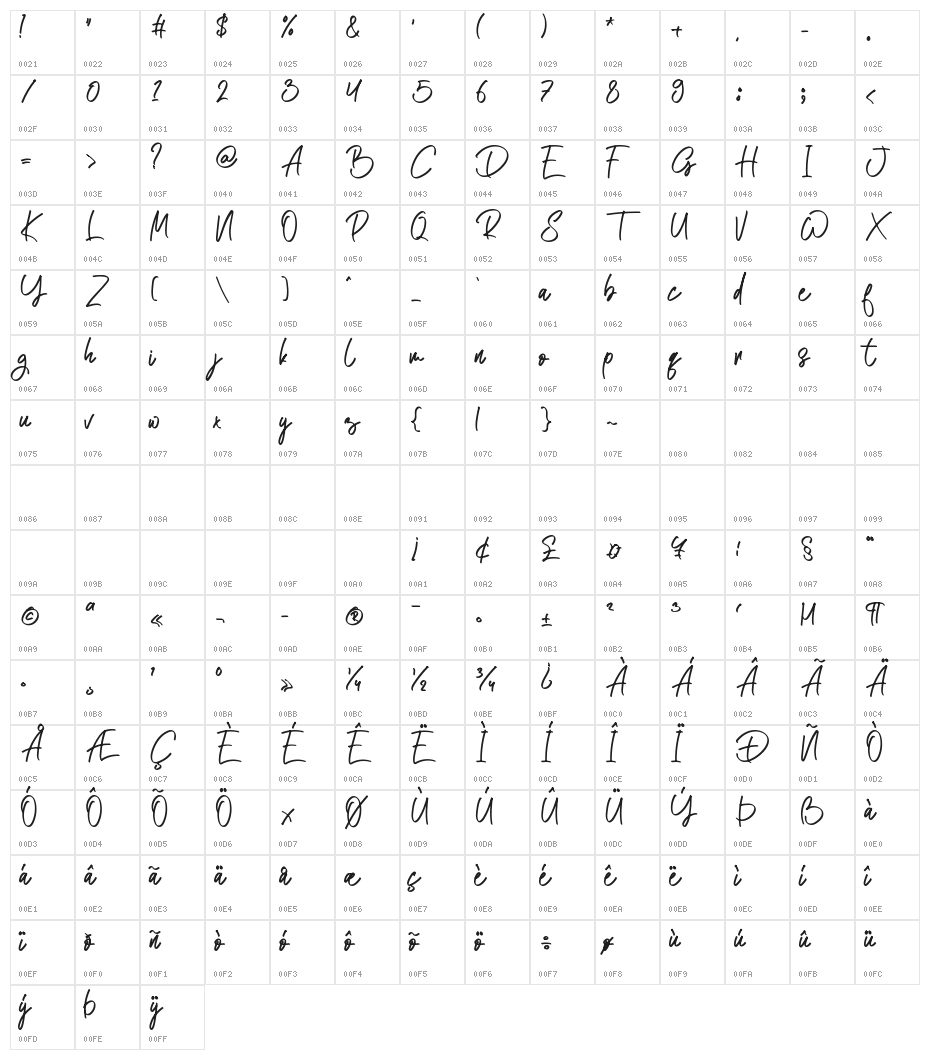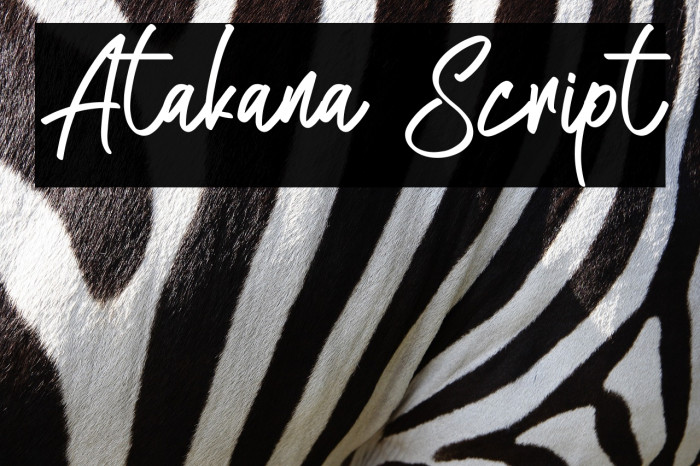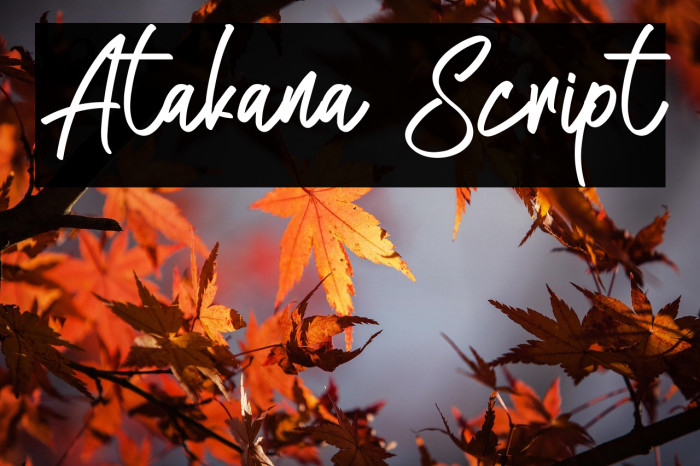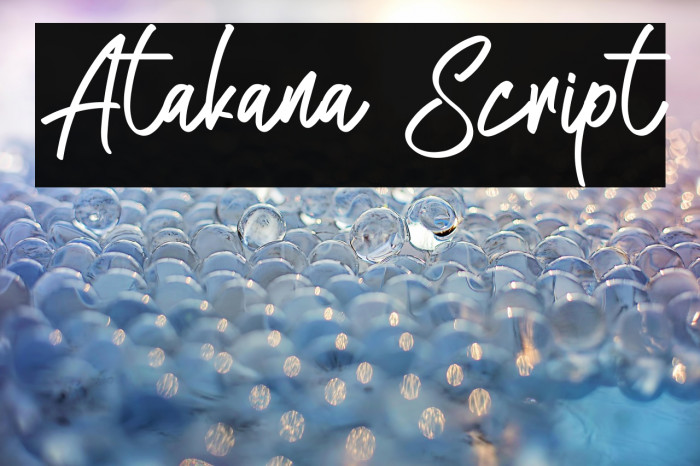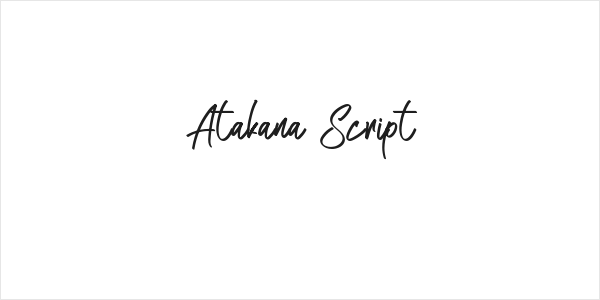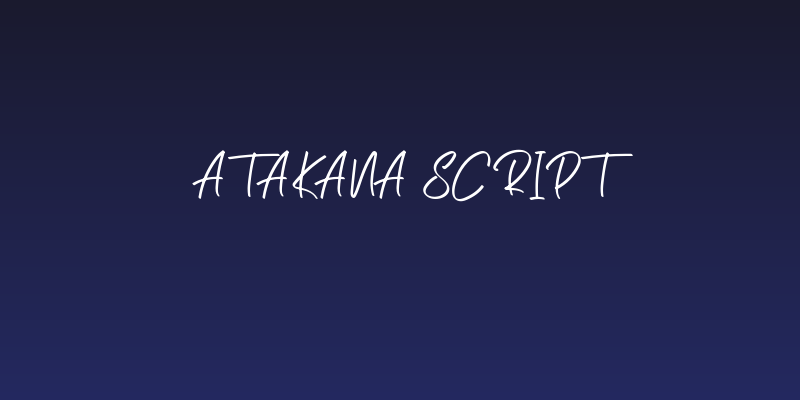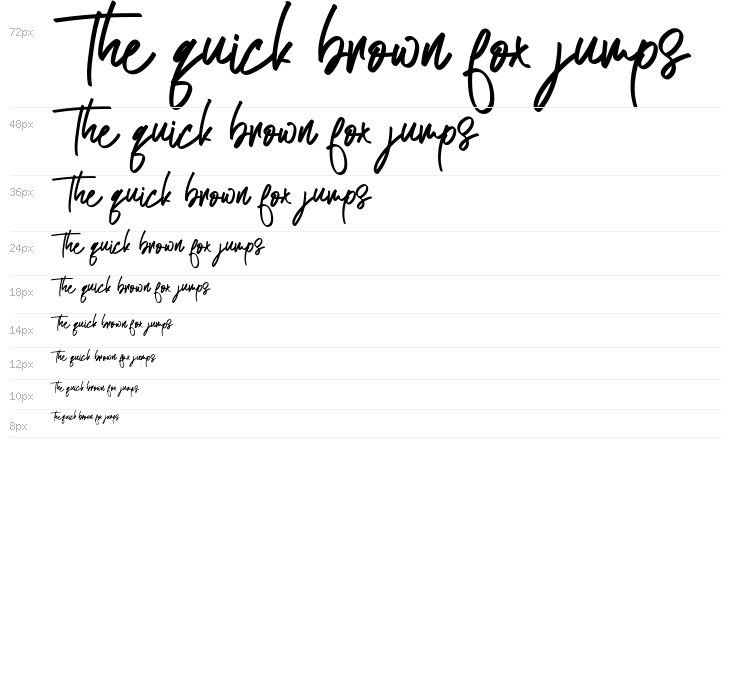
Atakana Script Font
Atakana Script Description
This script font exudes a lively and dynamic energy, characterized by its fluid and cursive strokes. The uppercase letters are elegantly elongated with a slight slant, while the lowercase letters maintain a consistent flow, enhancing readability. The numerals are distinct and maintain the same cursive style, adding a cohesive look to the entire set. Special characters are integrated seamlessly, ensuring versatility in various applications. The overall design is reminiscent of handwritten notes, offering a personal and approachable feel.
| Proposed Projects | Ideal for wedding invitations, greeting cards, personal branding, and creative projects that require a handwritten aesthetic. |